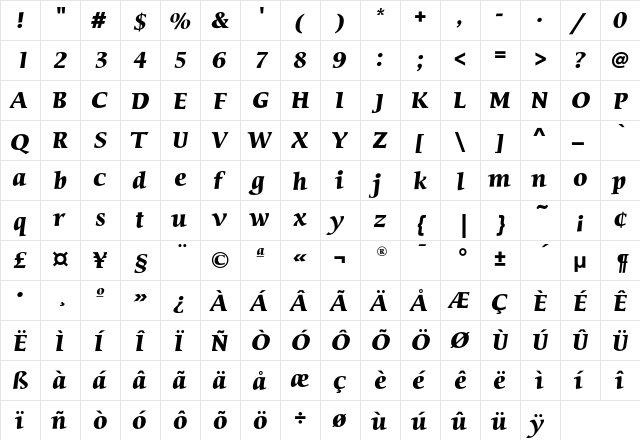
SierraEF-BoldItalic Regular
Design Context for SierraEF-BoldItalic Typeface
SierraEF-BoldItalic offers clean, dependable letterforms without strong stylistic allegiance, making it a practical choice for designers who need flexibility. The dynamic lean of this cut emphasises speed and emphasis in any layout. Its bold stroke weight gives it real presence on the page.
Pro Tip: Try SierraEF-BoldItalic for annotation and caption copy alongside an upright companion — the contrast in angle creates a dynamic but ordered typographic system.